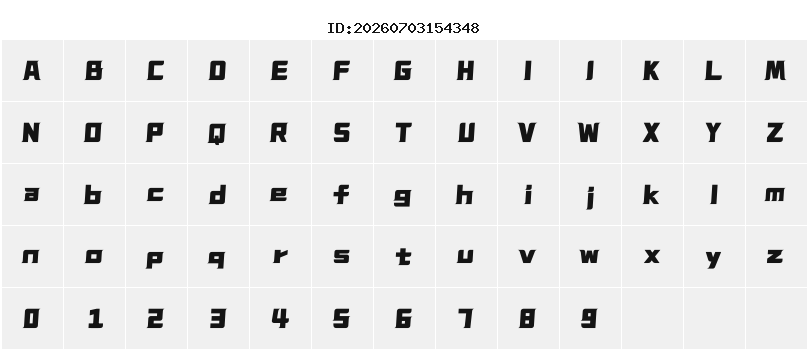
354-上首超越体 Preview
• Font Name: 354-上首超越体
• Font ID: 354-SSChaoYueTi:Version 4.00
• Full Font Name: 354-上首超越体
• Version: Version 4.00 September 5, 2024
• PostScript Name: 354-SSChaoYueTi
• Character Count: 7567
• Manufacturer: 上首造字
About 354-上首超越体.ttf
354-上首超越体.ttf is a modern, elegant sans-serif font designed for ultimate readability and visual harmony. Perfect for branding, headlines, web design, and print materials.